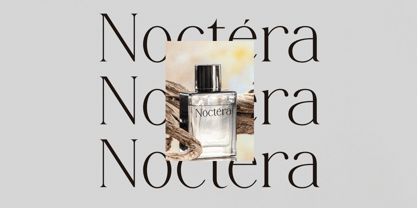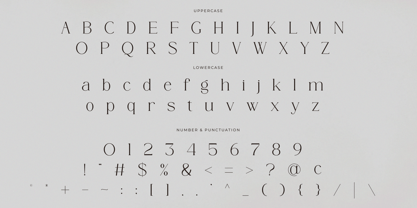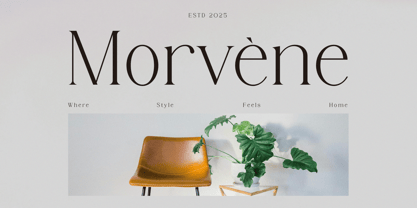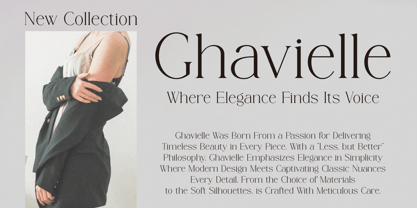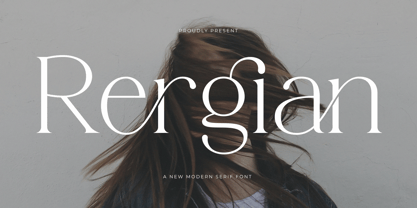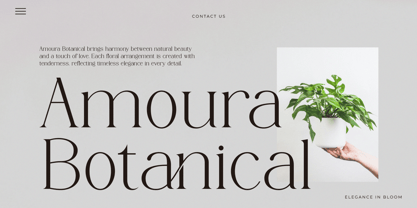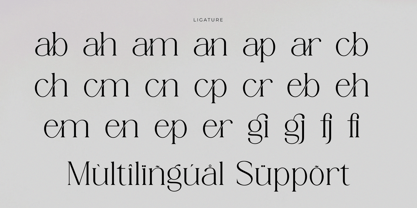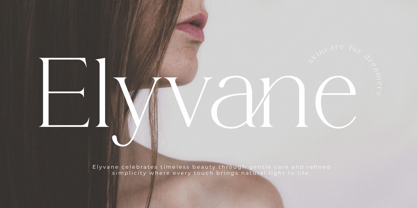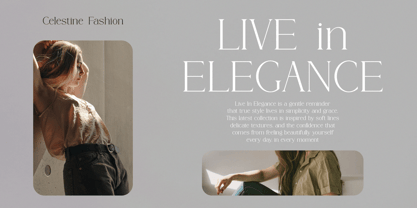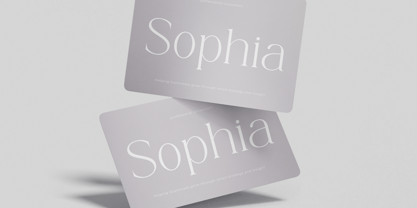
Rergian
The Rergian Font Family was designed by Farchan and published by Gridline Type. Rergian contains 1 styles. More about this family
Introducing Rergian the elegant, beautiful, and modern Serif. With its modern and minimalist look, Rergian brings a luxurious, classy, ​​and clean style to your projects such as websites, modern logos, brand identities, social media quotes, wedding stationery, magazines, and more! Rergian features unique and classy capital letters A to Z and also comes with unique alternates making Rergian a beautiful font that can be customized for various projects and jobs you want. Rergian is perfect for: logos, brands, wedding invitations, business cards, greeting cards, posters, magazines, social media, agenda prints, and websites. FEATURE: * Easy to Use (Includes a guide on how to use the font) * Compatible with: Adobe Illustrator, Photoshop, Canva, Procreate, etc. * Quick Response Support * Uppercase and lowercase letters * Multilingual Characters * Numbers & punctuation * Alternative styles and ligatures Hope you enjoy our fonts & if you have any questions, feel free to Contact us & We are happy to help I appreciate your interest and I hope you enjoy this font!